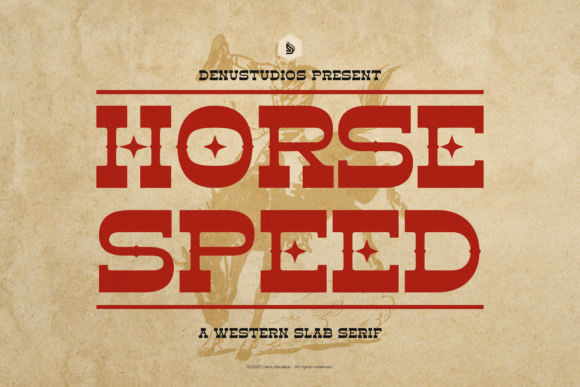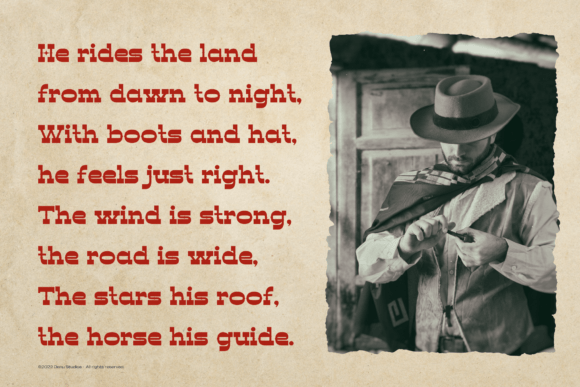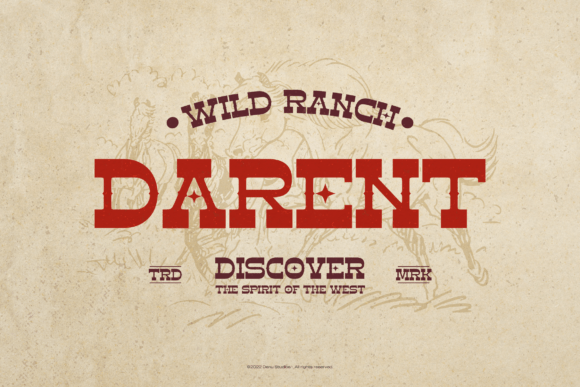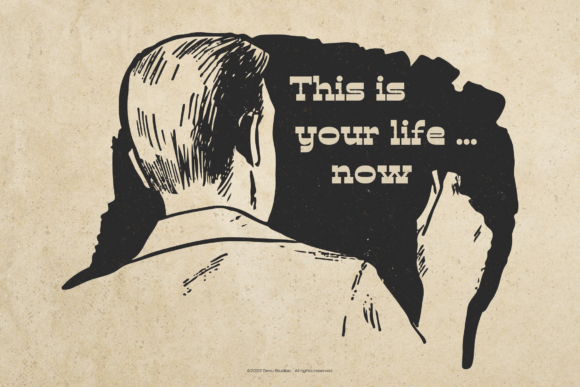
Horse Speed Font: Bold Western Slab Serif for Vintage Branding & Posters
About the Horse Speed Font
Unleash your creativity with Horse Speed Font, a versatile font perfect for a wide range of applications. Horse Speed is a bold Western slab serif font that gallops straight into the heart of vintage Americana. With rugged edges, star-studded characters, and a strong, sturdy build, this font is perfect for Western posters, rodeo flyers, rustic branding, signage, and anything that needs a classic cowboy flair. It brings the spirit of the Wild West to life—fast, fierce, and full of grit.
Horse Speed excels in headlines, short impactful statements, and branding applications requiring a strong vintage feel. Its bold nature makes it unsuitable for body copy or UI elements where readability is paramount; long blocks of text set in Horse Speed will be difficult to read.
Consider pairing Horse Speed with a clean sans-serif like Montserrat for a balanced contrast, or a more delicate script font such as Great Vibes for a touch of refined Western elegance. For a more rugged aesthetic, a geometric sans-serif such as Futura would complement its bold slab serifs.
The font’s overall personality is bold, rugged, and undeniably confident. It’s ideal for brands conveying themes of heritage, adventure, or Americana, particularly in the food & beverage, apparel, and entertainment industries.
Horse Speed Font Usage Examples
Horse Speed Font Example